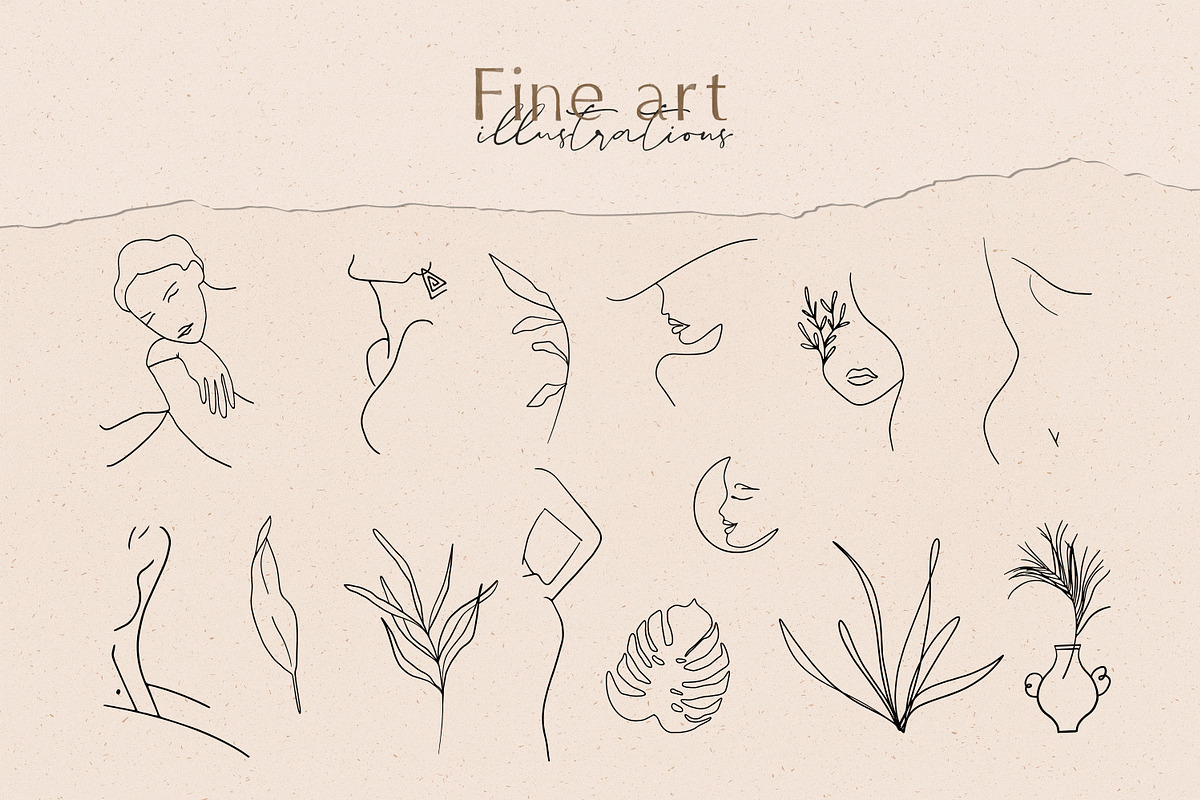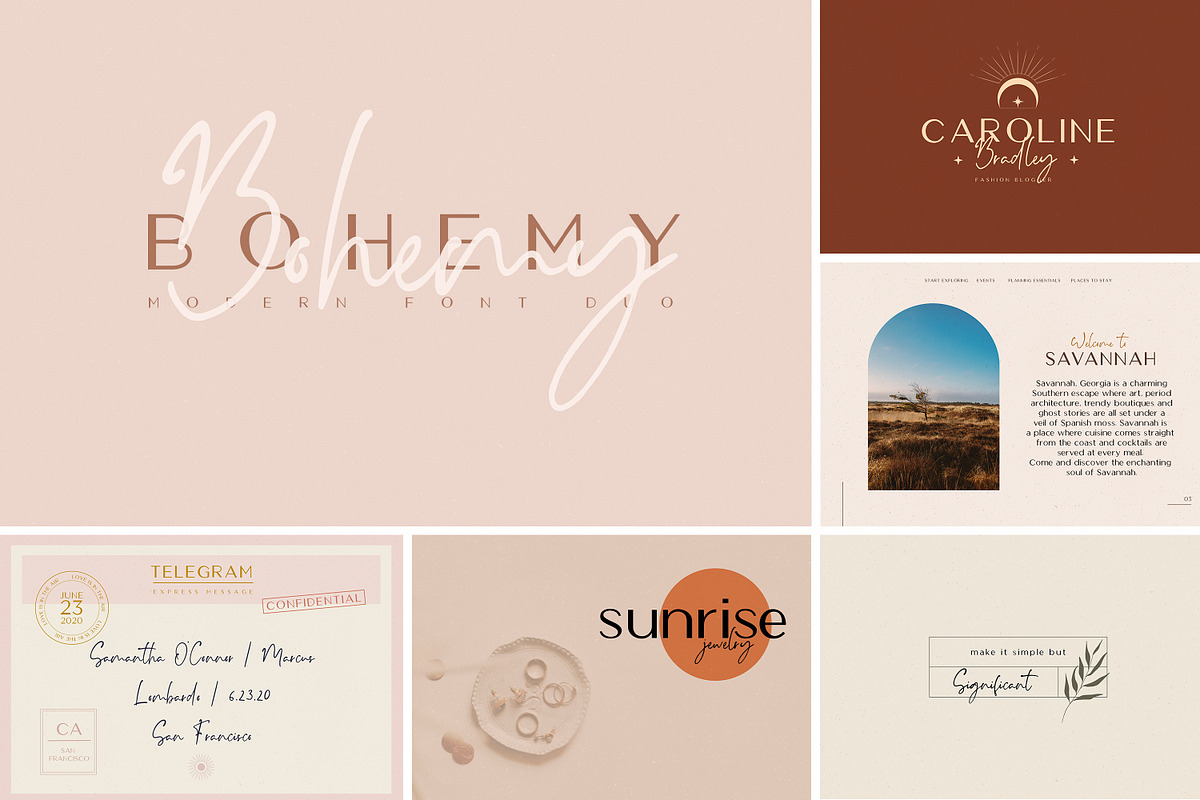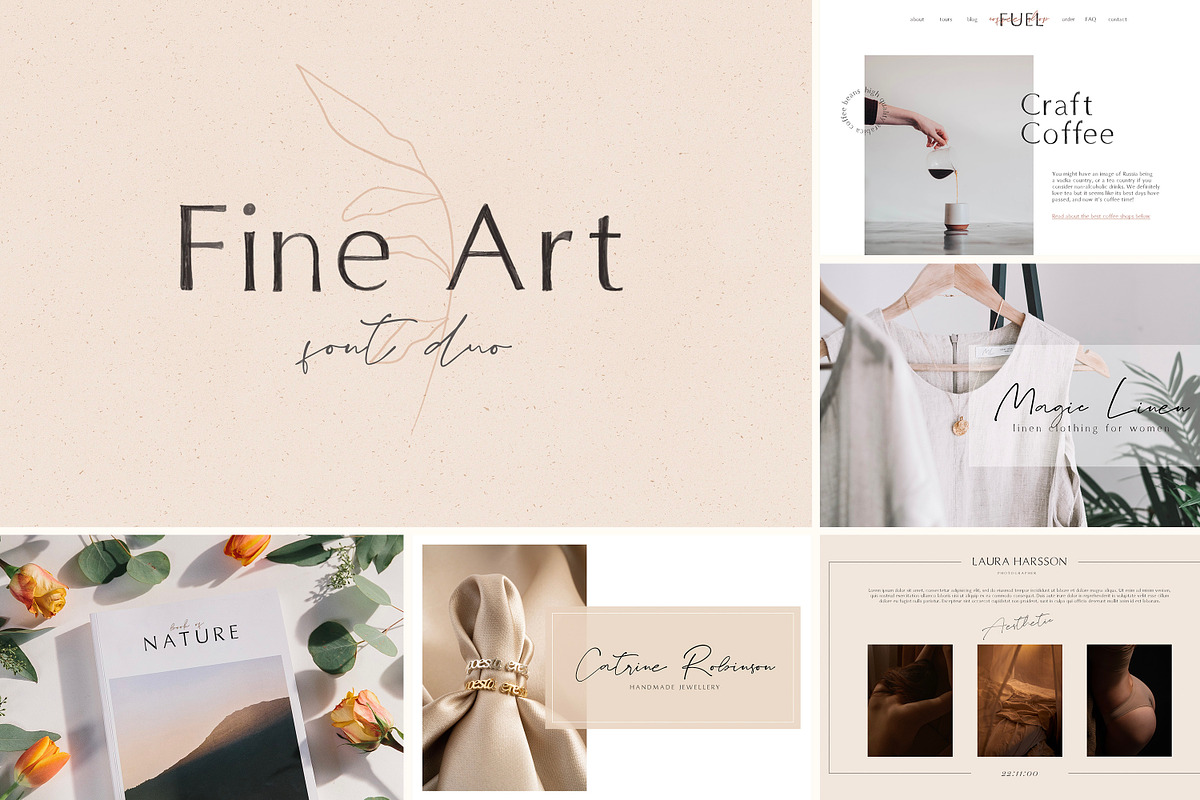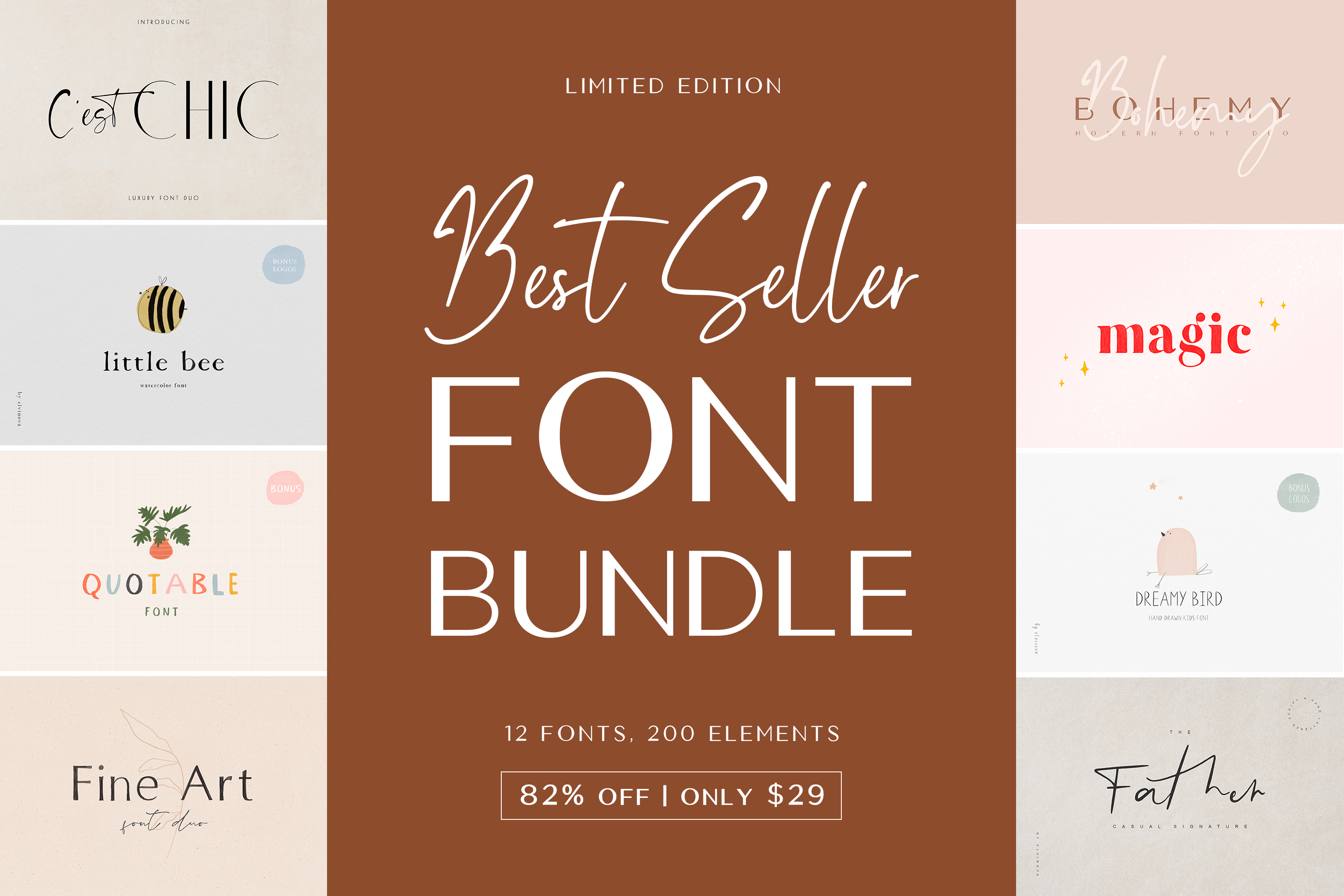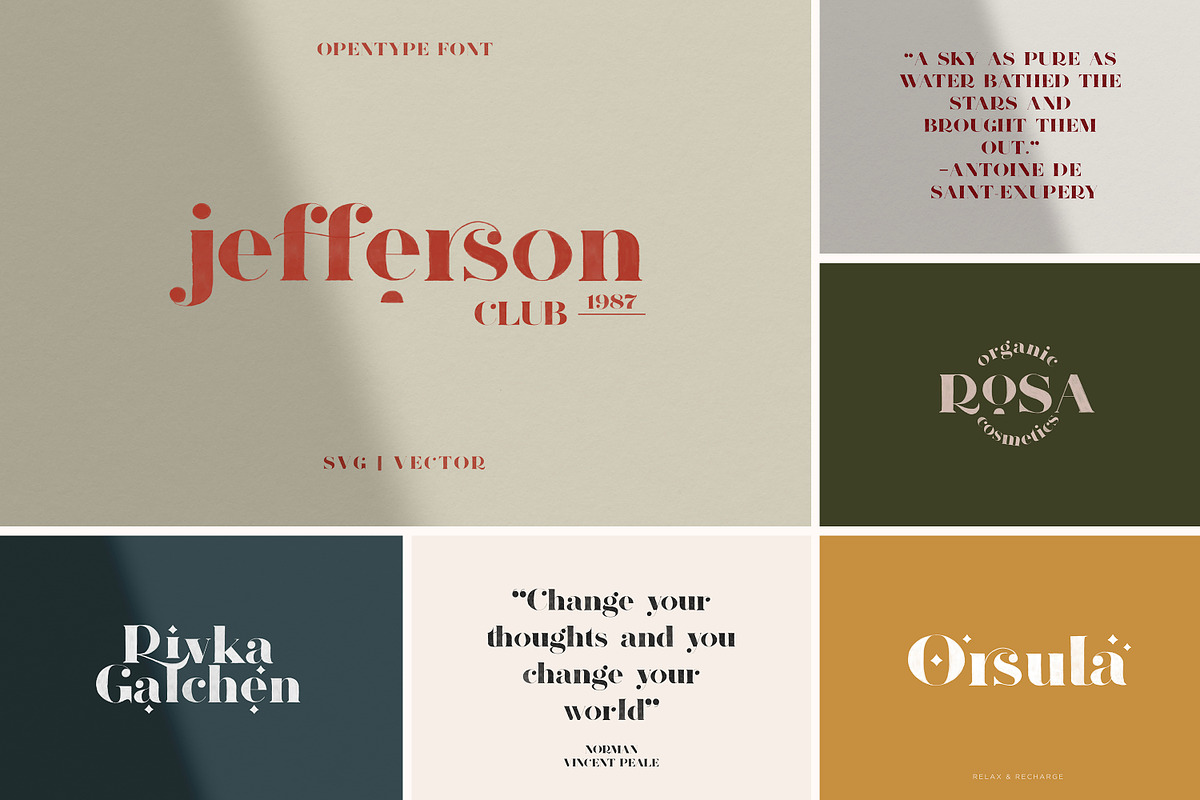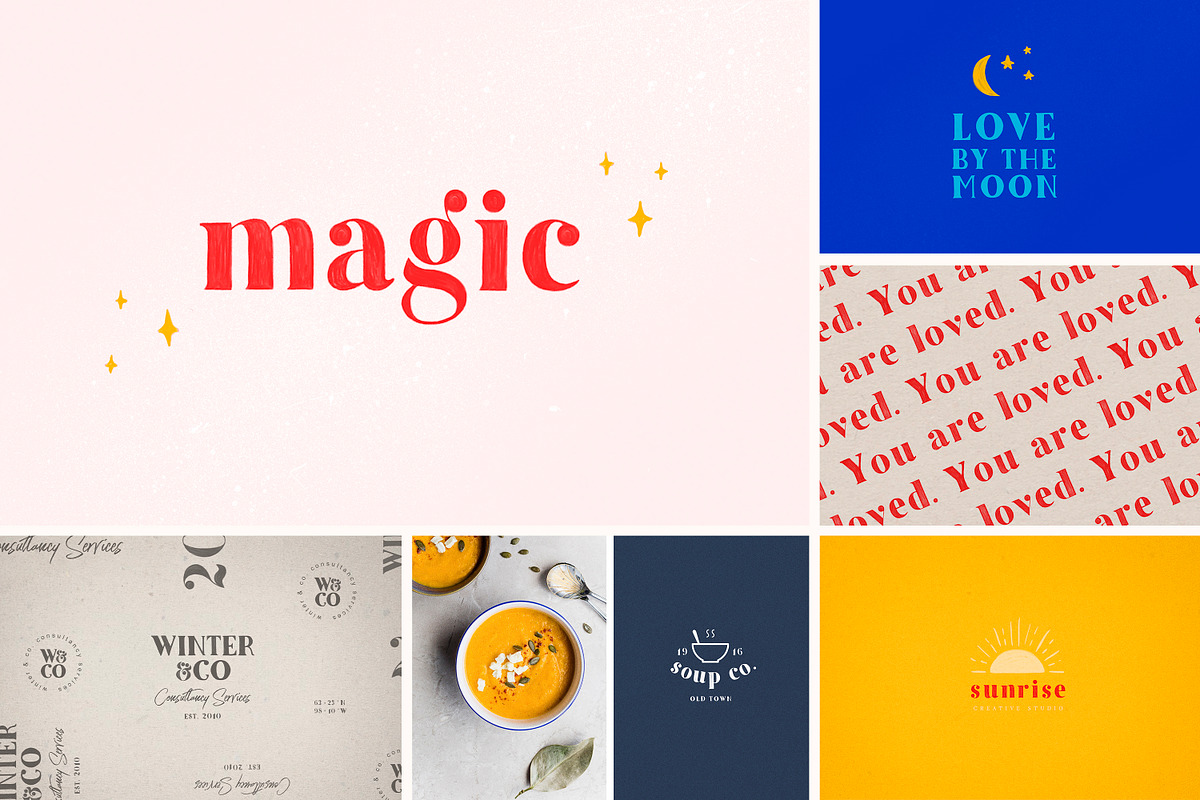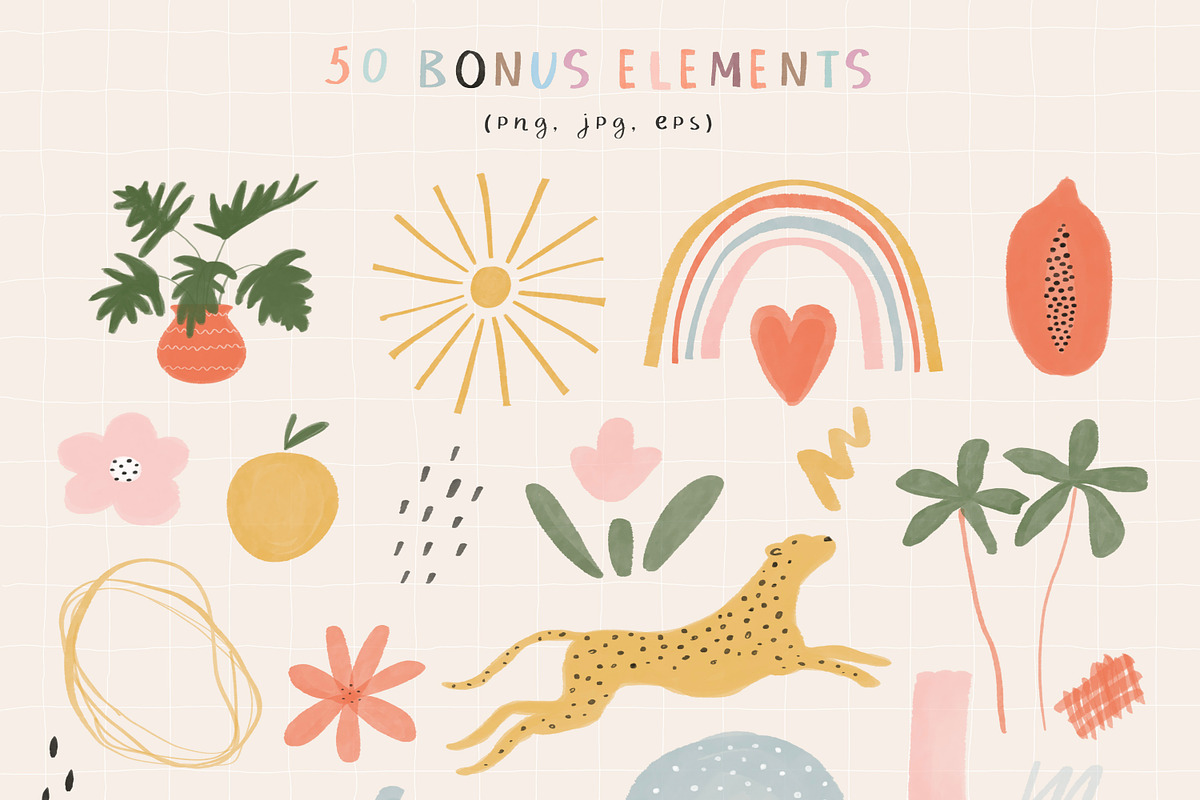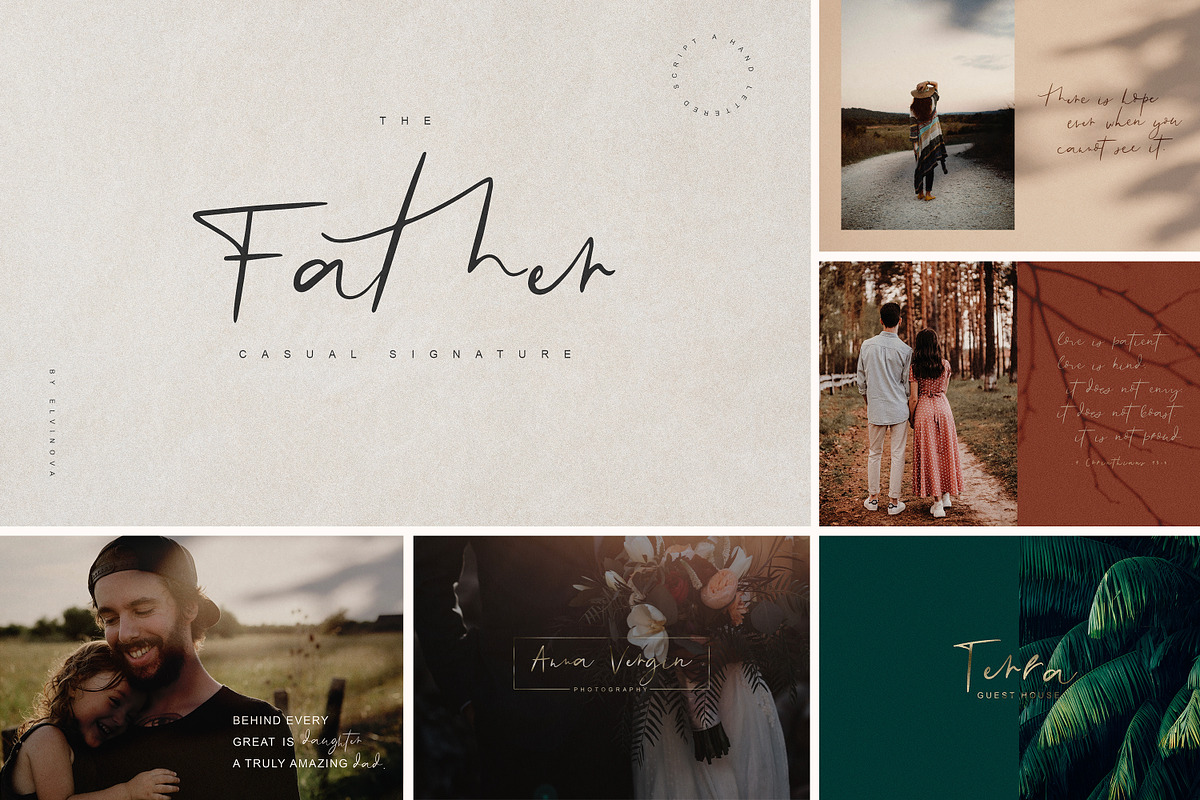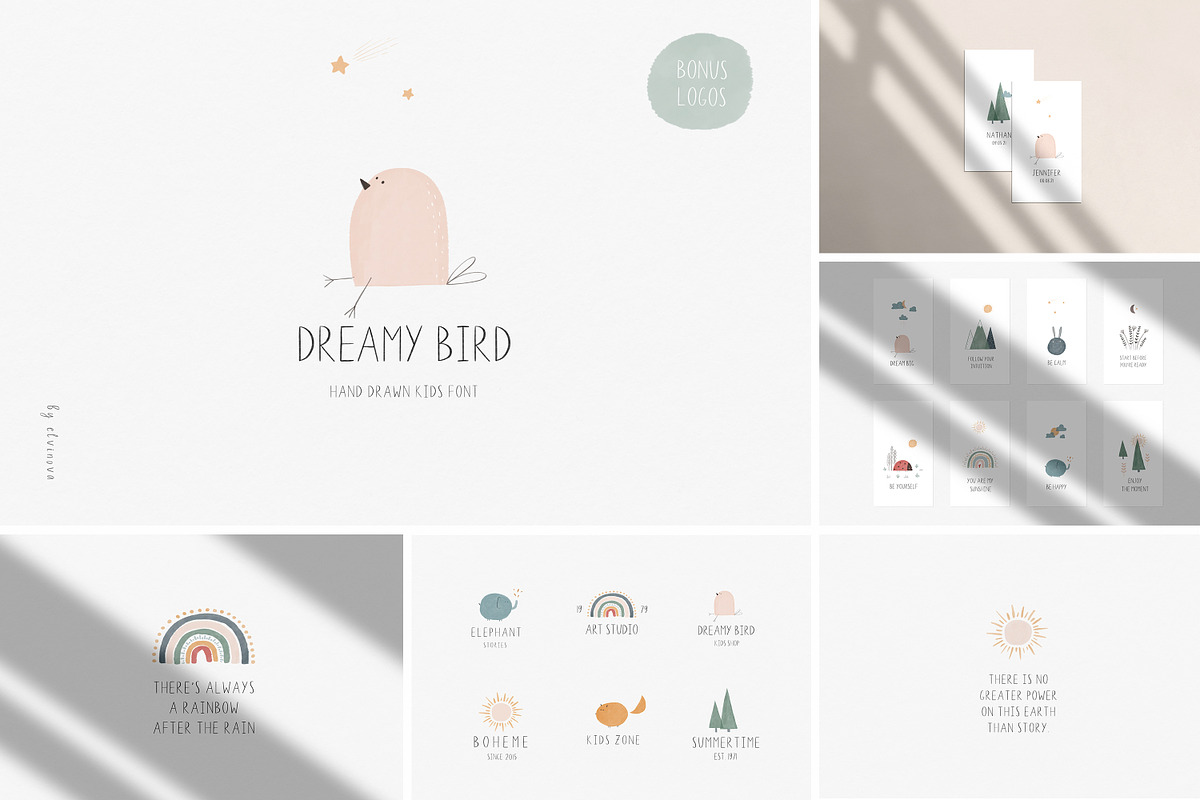
Best Seller Font Bundle
Introducing 12 lovely, best-selling fonts, including soft serif, sans serif & script fonts with commercial use. Also, you will get over 200 design elements, than contains individual elements, pre-made logos, social media covers. This bundle will help sharpen your designs.
All of Elvina's scripts are some of the prettiest, most well-kerned I've seen, and her "hand drawn" fonts never veer into the overly twee, I had bought this pkg for the great deal as I primarily wanted fine art script and was pleasantly surprised how well the regular fine art worked even in large bodies of text visually at a 20pt adding visual interest without being too distracting. Her sans serifs are equally good offering some fresh air to the category. Doesn't hurt that she is communicative and helpful either...highly recommend